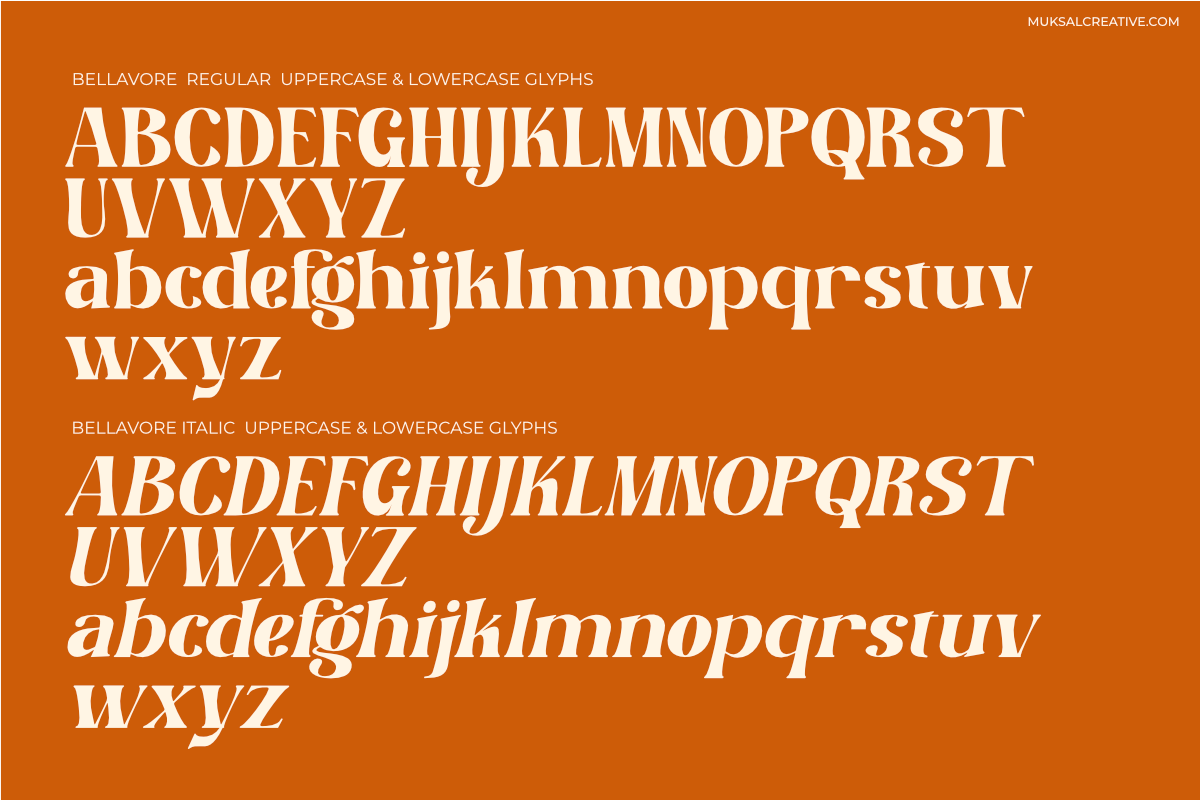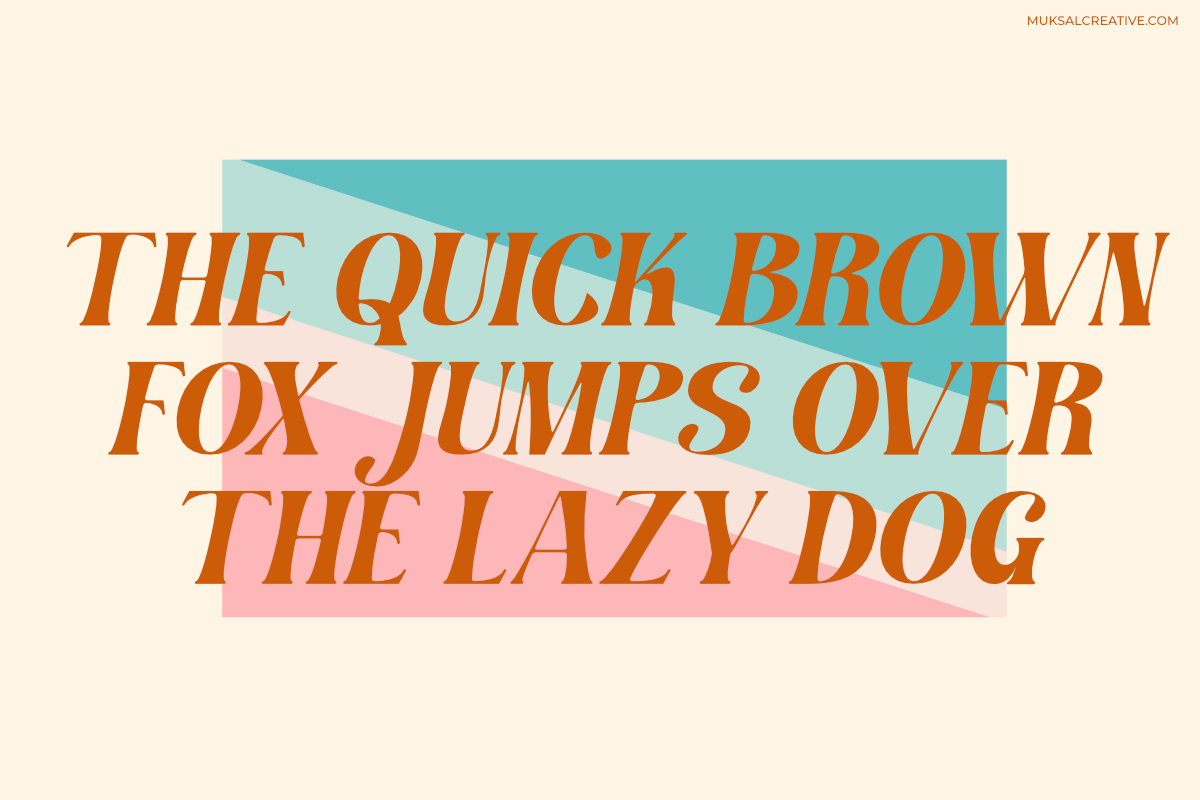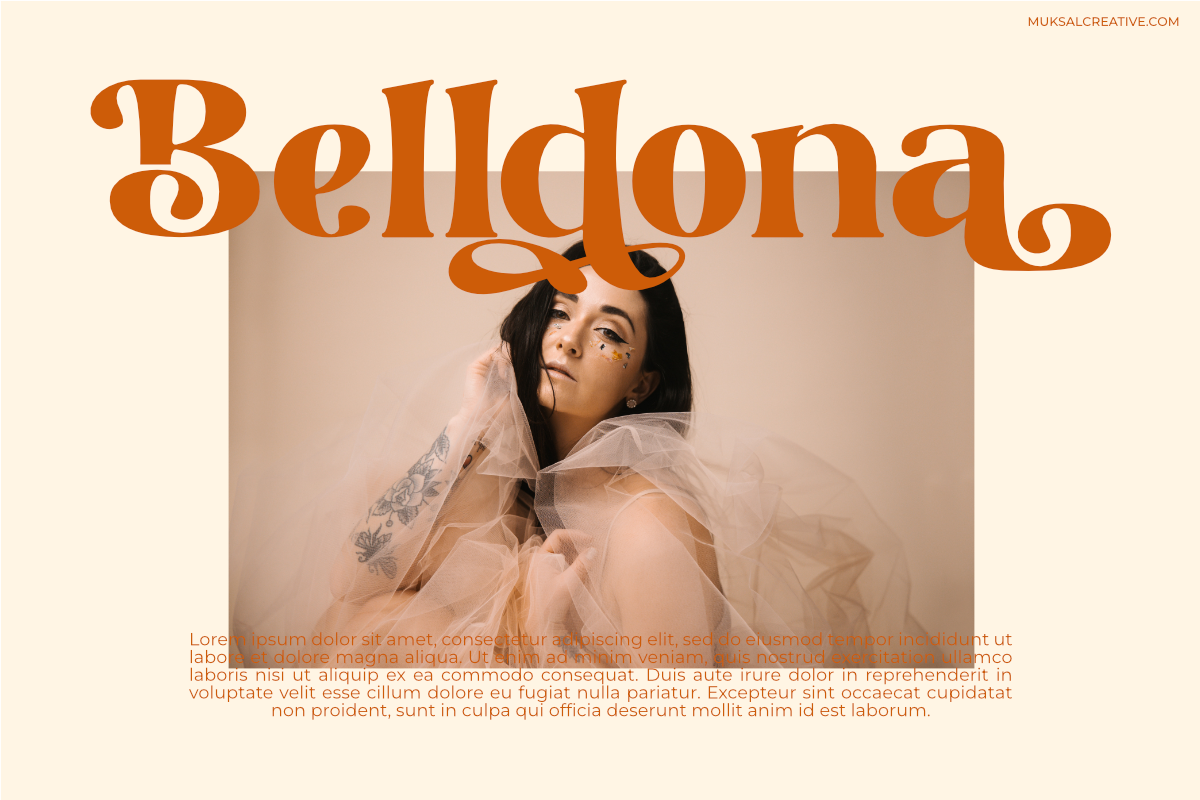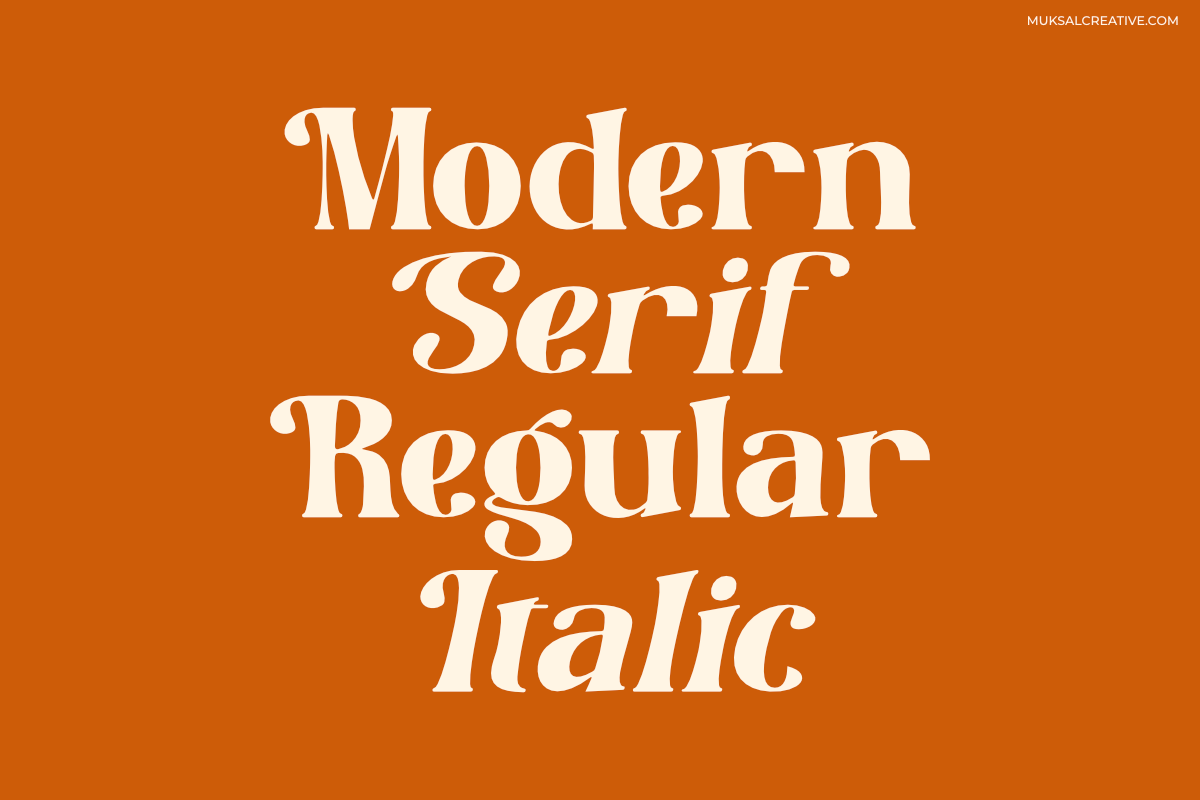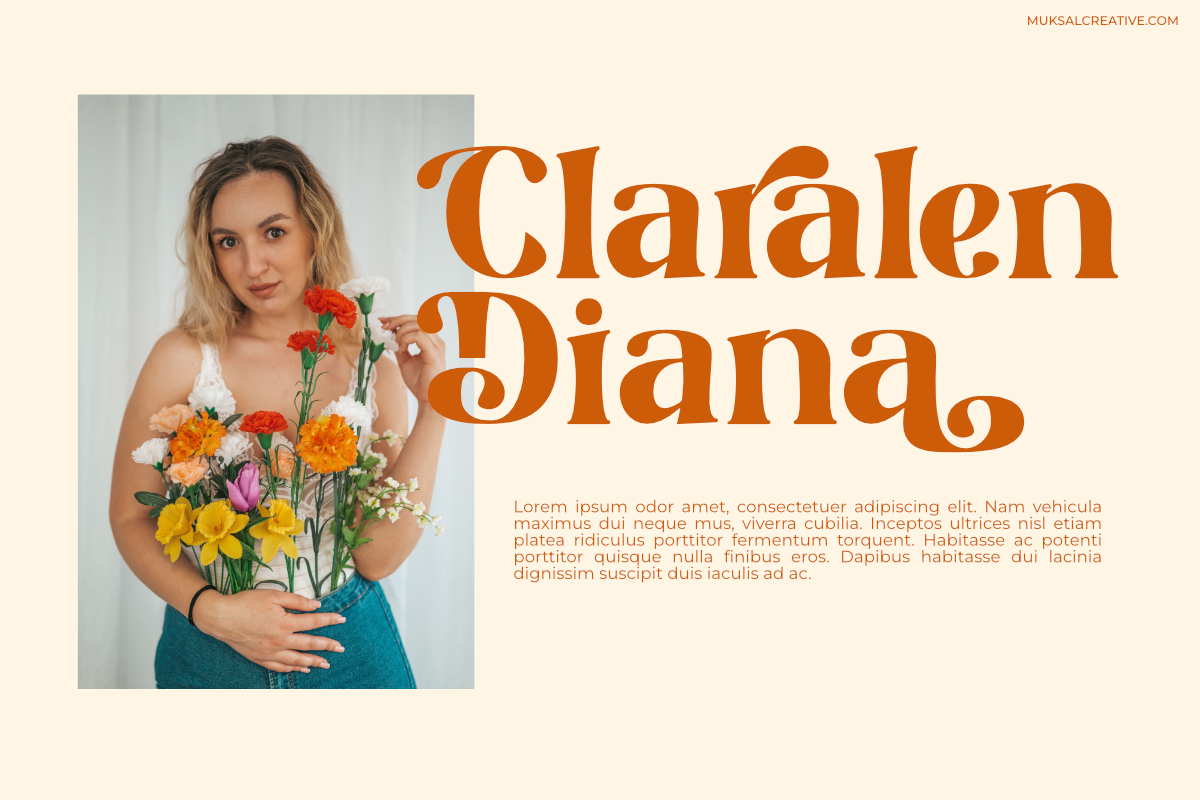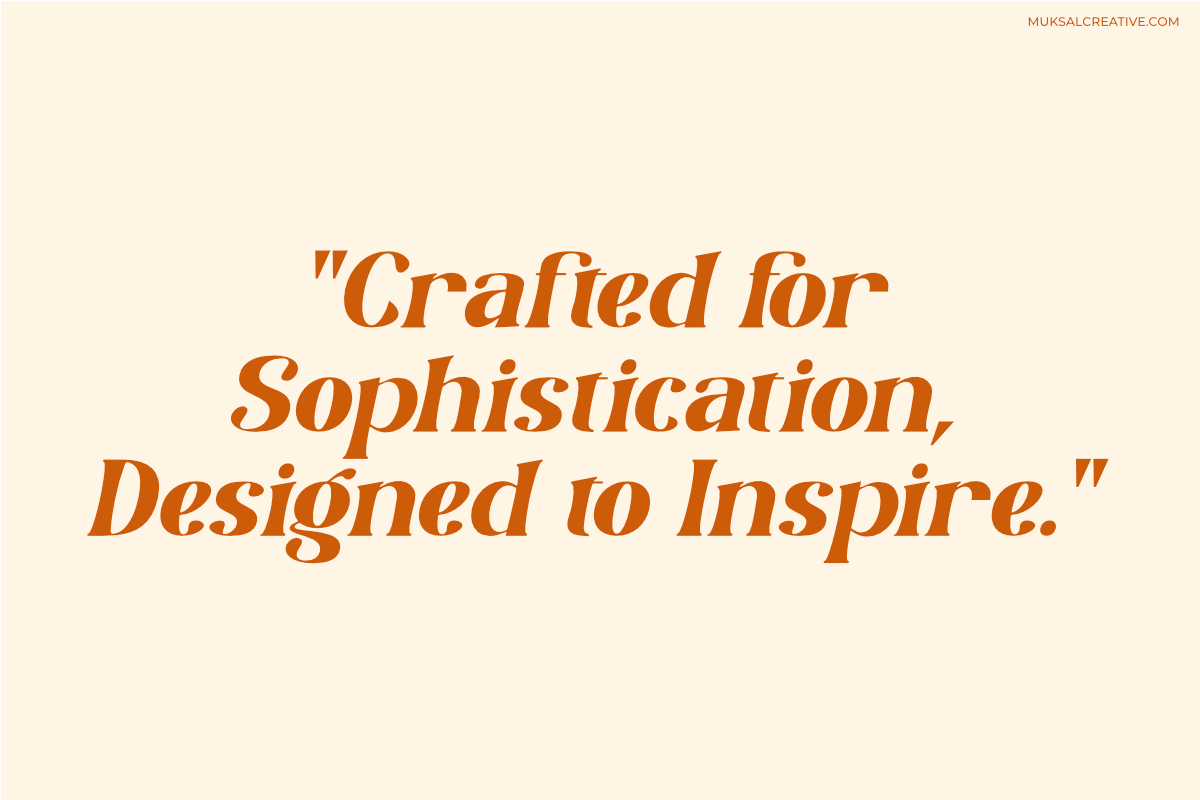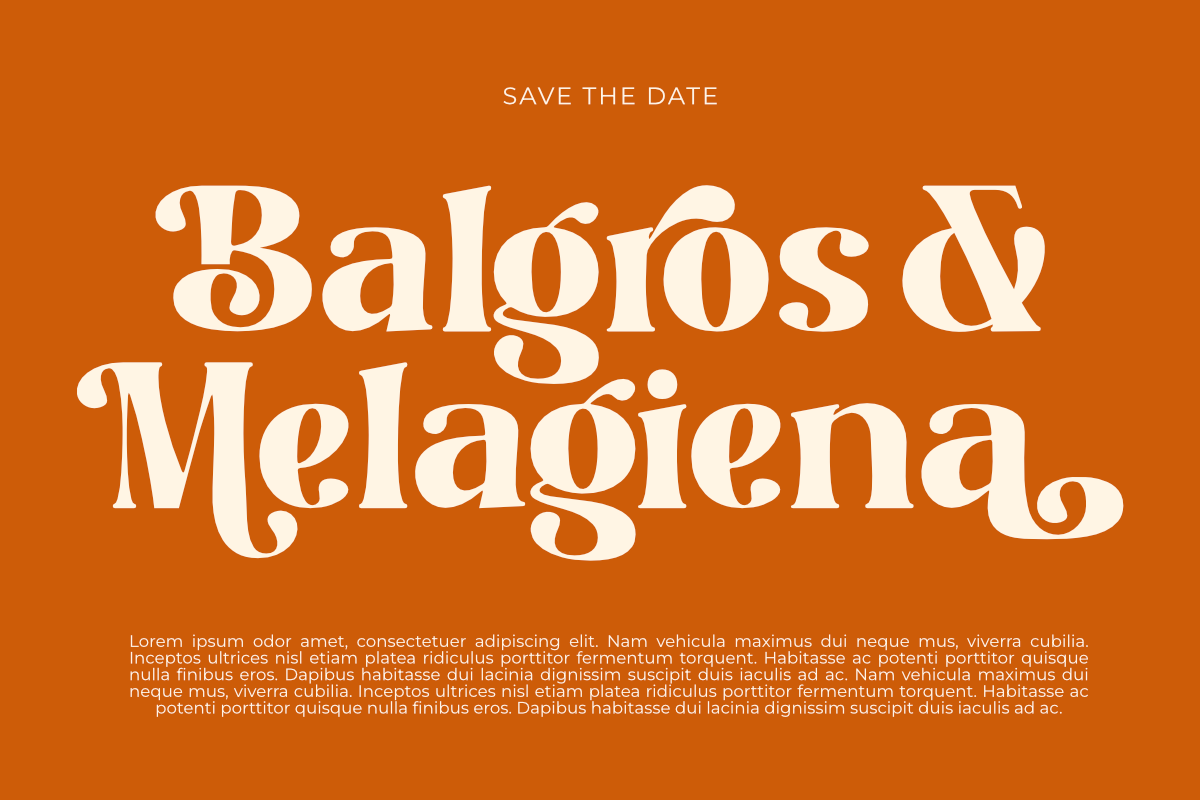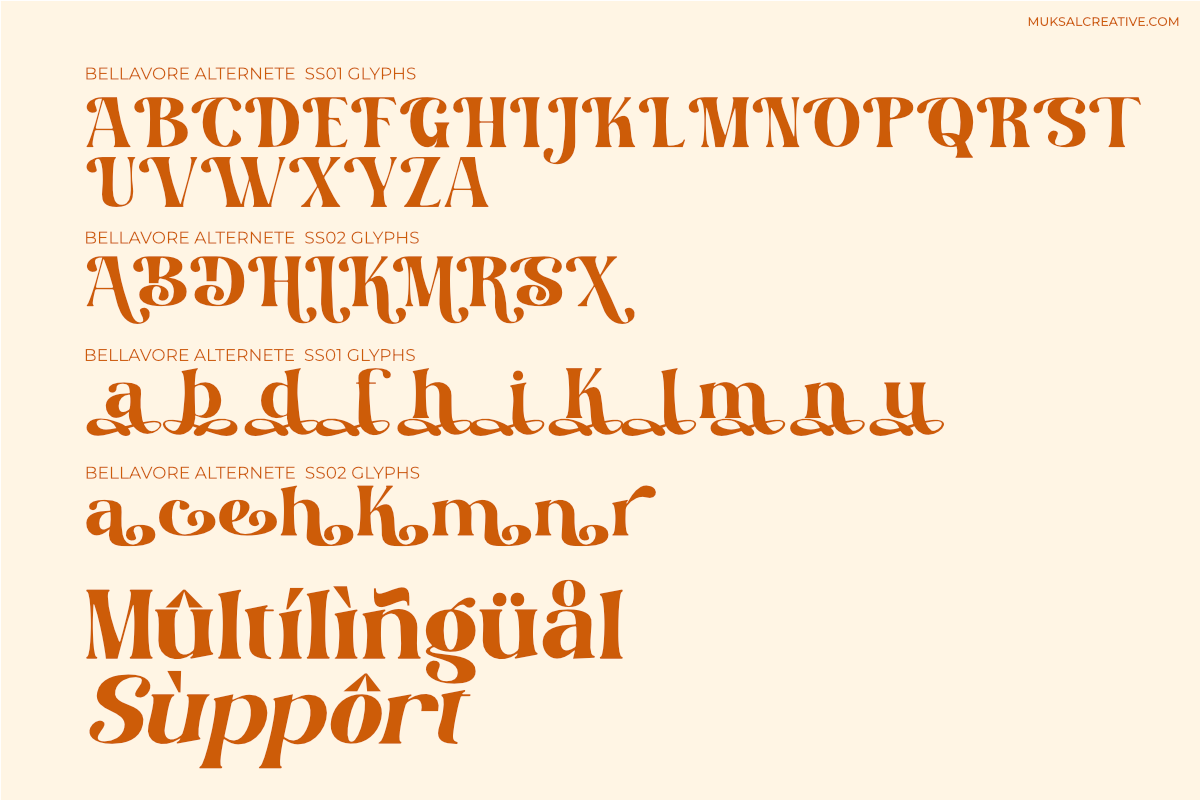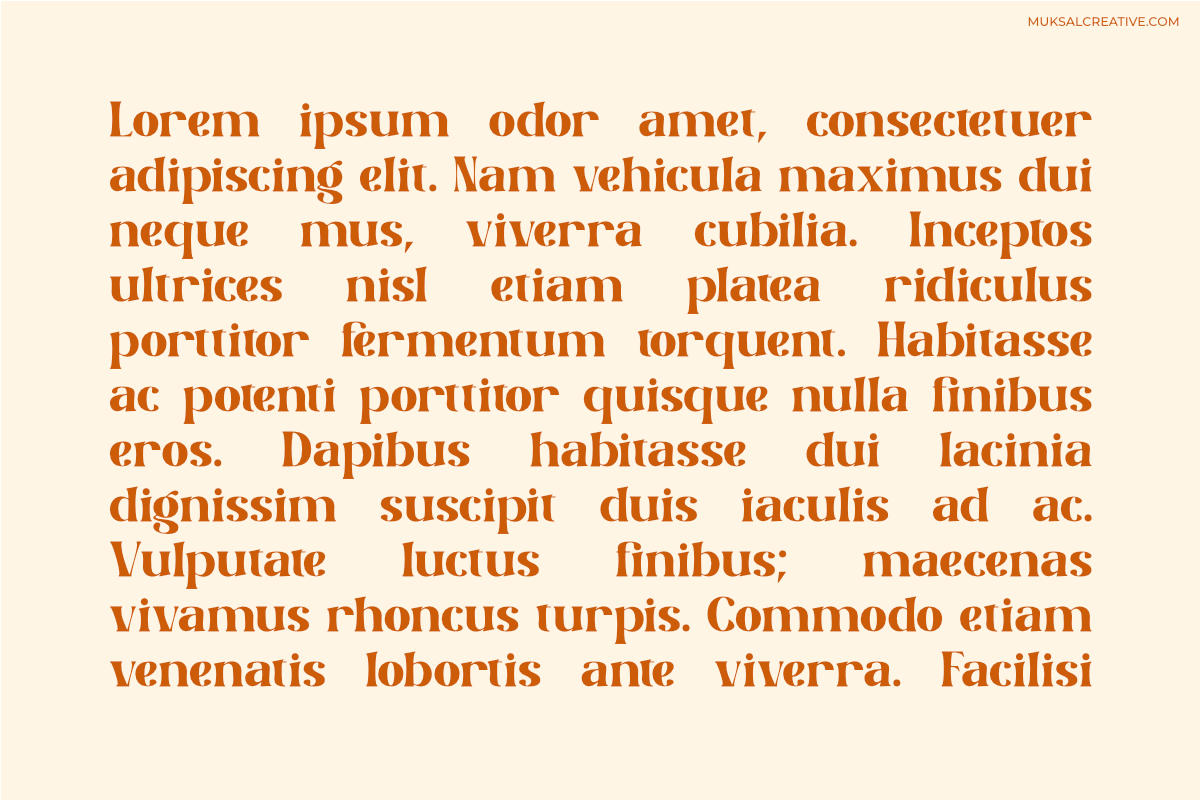
Bellavore
Bellavore is a display serif font that blends classic elegance with contemporary flair, featuring dramatic decorative serifs and striking thick-thin stroke contrast for a luxurious, authoritative presence. With versatile alternate characters, it enables creative customization in logos, headlines, and premium branding—ideal for high-impact projects like luxury packaging, posters, editorial layouts, or digital media. Optimized for large-scale use, its wide proportions and precise details retain sharpness at any size, perfect for brands seeking timeless yet dynamic personality without sacrificing legibility.
In essence: Bellavore commands attention through ornamental serifs and offers limitless design exploration with its alternates.